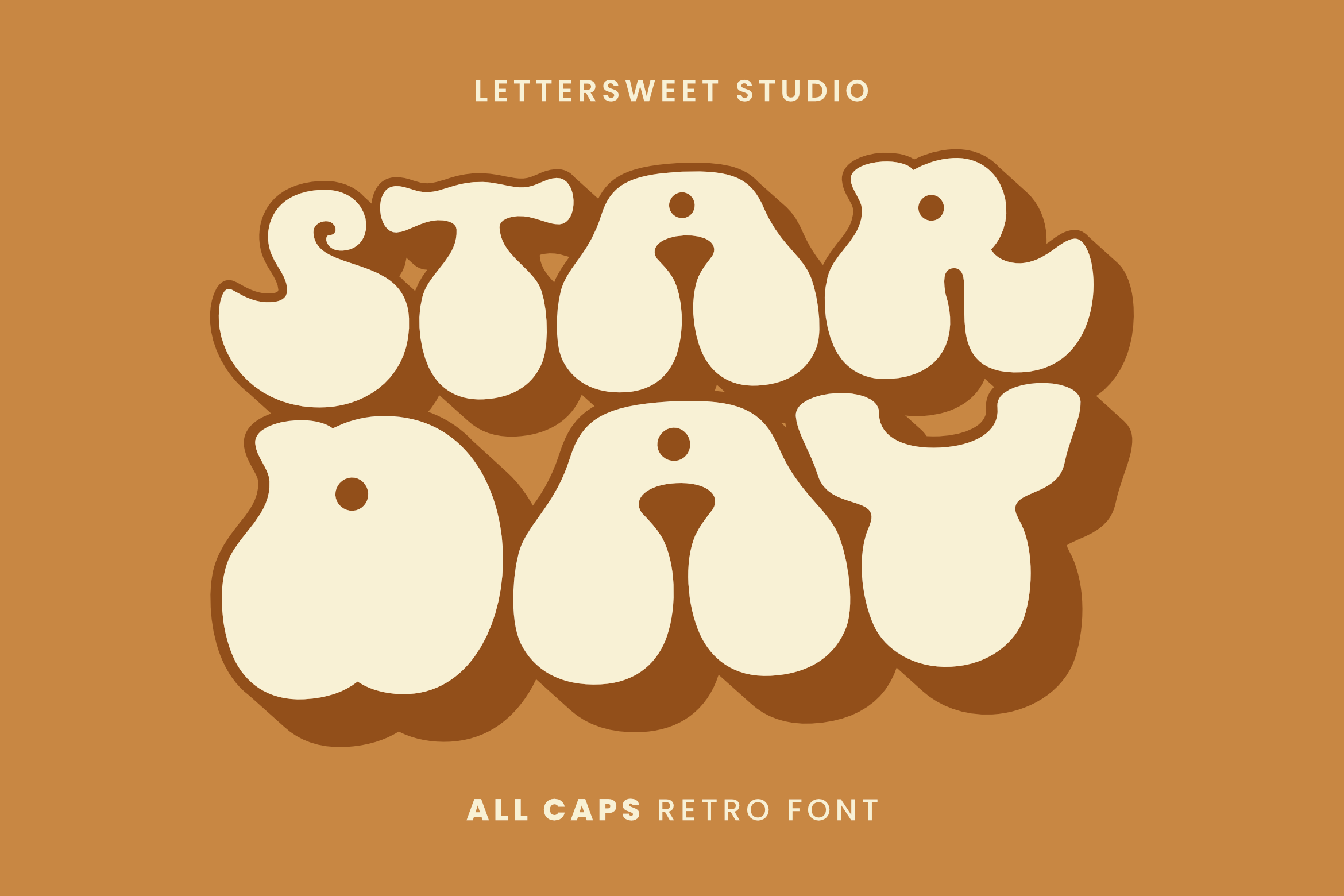
Starday - Playful Nostalgic Retro Font
About Starday - Playful Nostalgic Retro
Starday feels playfully nostalgic and delivers an incredible vintage retro aesthetic. Use this display font to add that special retro touch to any design idea you can think of!. This font has the potential to bring each of your creative ideas to the highest level!